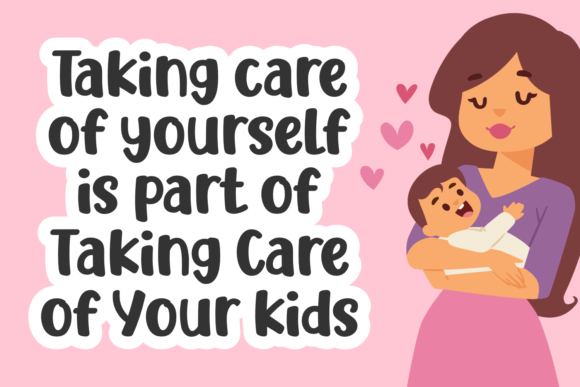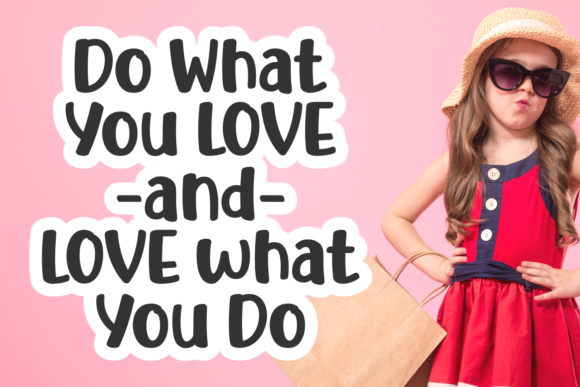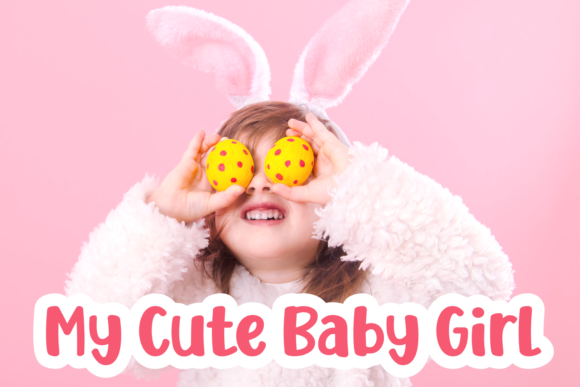
Stars To Reach is a cute and playful handwritten font. It’s perfect for Easter cards, birthday cards, invitations, quotes, t-shirts, branding, posters, magazines, and logos.